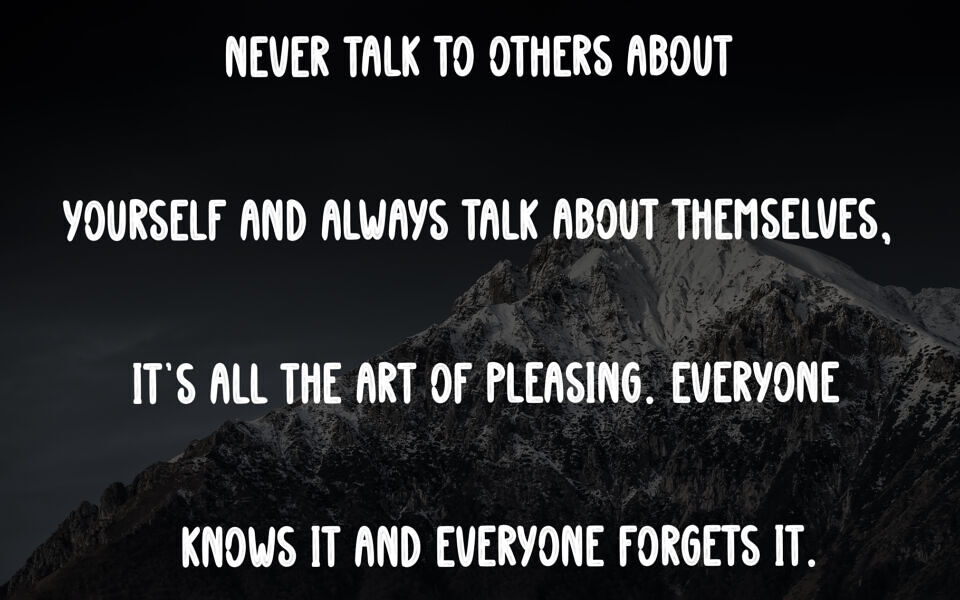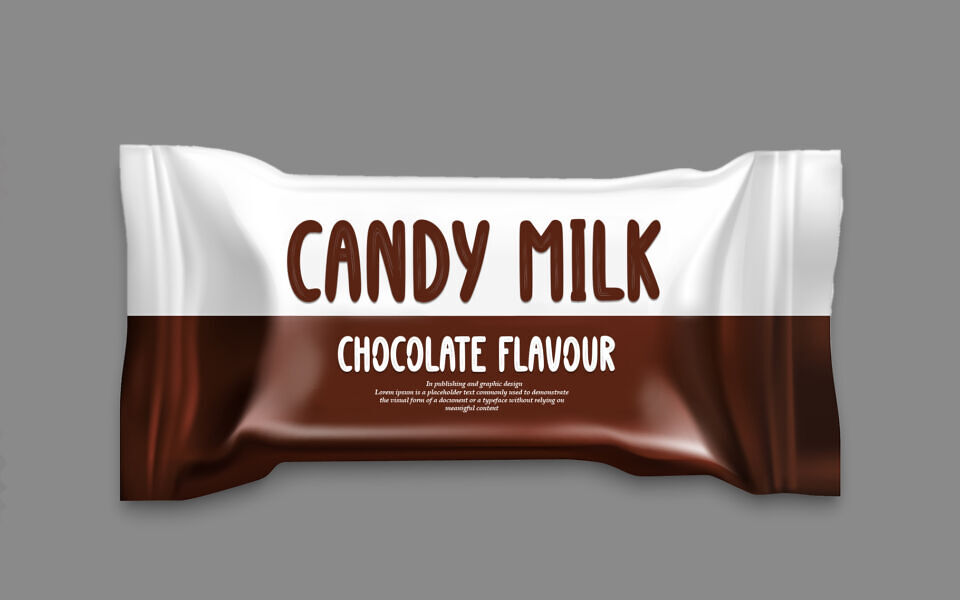
The Black Canvas Font is a bold, hand-drawn typeface with a playful, rounded style. Its thick, white letters feature subtle, sketch-like outlines, creating a dynamic contrast against a textured background.
Perfect for eye-catching designs, this font exudes a casual, artistic vibe, making it ideal for posters, logos, or creative projects. The irregular strokes add a touch of whimsy, while the sturdy letterforms ensure readability, blending modern flair with a handcrafted feel.